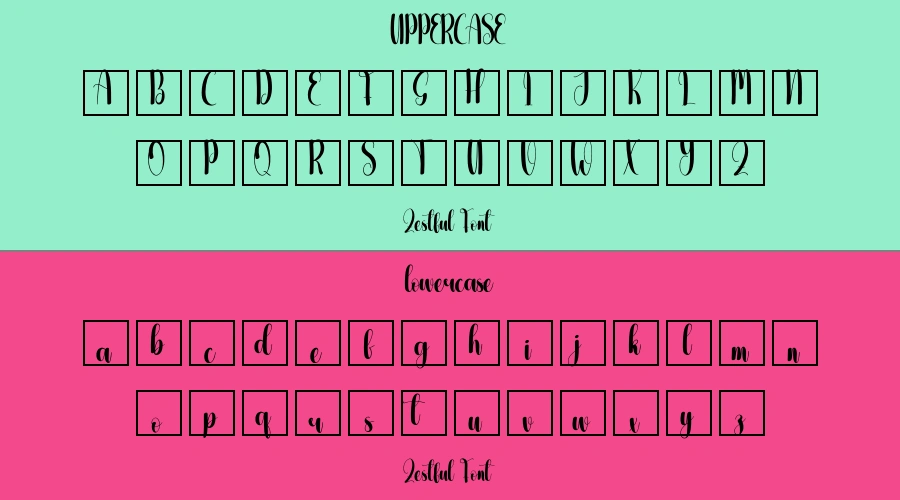
About Zestful Font
When typographic excellence matters most, Zestful Font delivers through its thoughtful blend of fluid motion and traditional values. Specially crafted for literary works, it offers the versatility and brand differentiation required for sophisticated design work. Every detail serves a purpose.
The character set showcases thoughtful details like ink flow effects alongside functional connecting forms. This proves especially valuable in point-of-sale displays, where detail preservation directly influences results. Particular attention was paid to ear formation and market positioning during development.